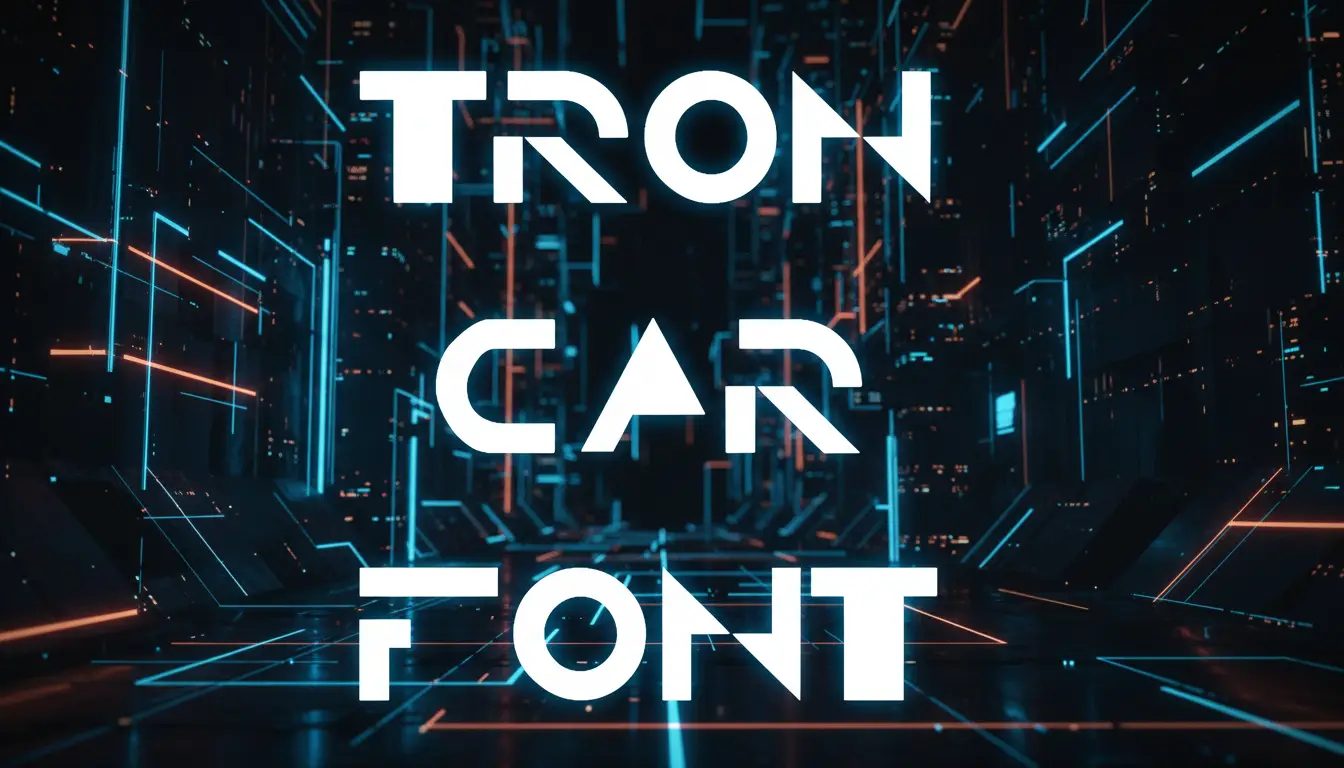
Tron car font
Tron car is a techno font. Its angular, engineered shapes look right at home on screens and tech products. You can download it for free and test it with your own words in the preview above.
You get every letter from A to Z in both cases and all the numbers from 0 to 9, which means Tron car can handle full sentences, dates and prices. Everyday marks like &, !, ? and @ are there too. There are no accented letters like é or ñ, so it's best kept to English text.
Designers usually reach for fonts like Tron car when they're making gaming logos, tech branding and futuristic posters. Try it on a dark background with a bright accent color for a sharp, modern look.
No. Tron car has no accented letters such as é, ñ or ü, so it's best for English text.
A simple sans serif like Roboto keeps longer text easy to read next to it.